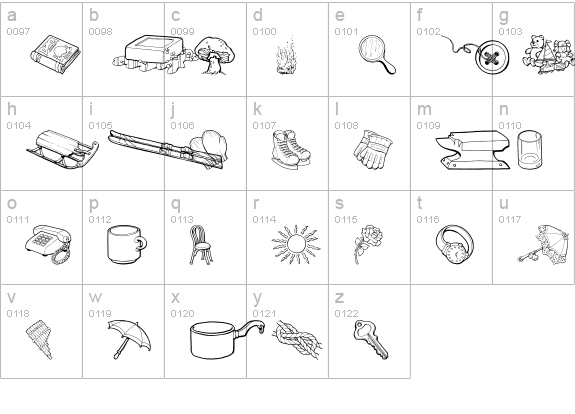
GE Grab Bag II Font Details
GE Grab Bag II font is a versatile and unique typeface that will add a touch of creativity to your design projects. With its playful and quirky style, this font is perfect for a wide range of applications, from branding to social media graphics. The wide range of characters and symbols included in this font allows for endless customization and creative possibilities. Best of all, GE Grab Bag II font is available for free download at FontsMarket.com. Whether you're a designer looking to add a fun twist to your work or a hobbyist looking to experiment with different fonts, GE Grab Bag II font is the perfect choice. Download it today and let your creativity run wild!